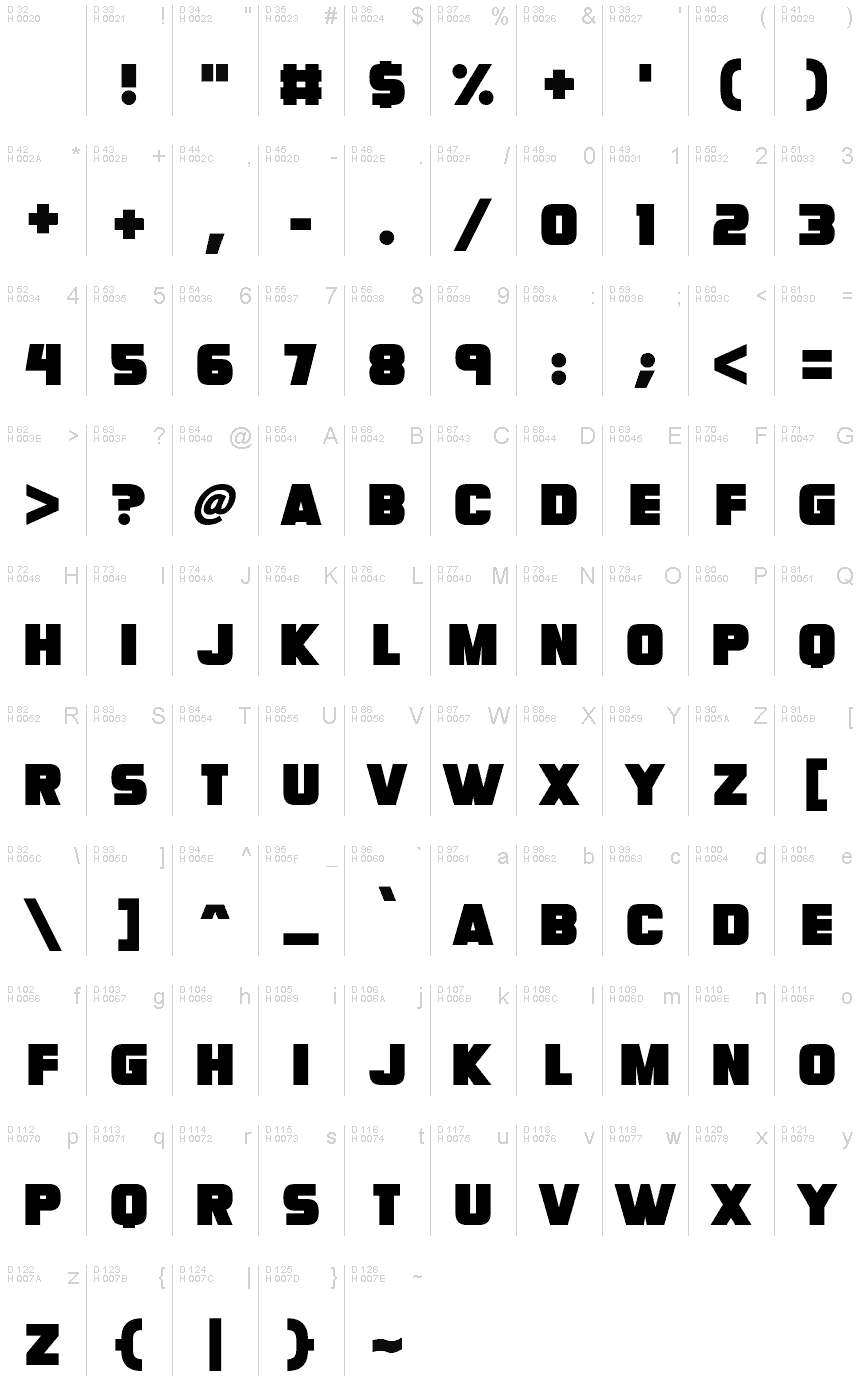
Megabomb
Megabomb is a striking sans-serif font that exudes power and intensity. Its bold, angular letterforms command attention, conveying a sense of strength and urgency. The geometric shapes and clean lines lend a modern, minimalist aesthetic, making Megabomb a versatile choice for a wide range of design applications.
This font shines in attention-grabbing contexts such as headlines, logos, and branding. Its bold presence can cut through visual clutter, making it an excellent option for packaging, posters, and digital interfaces. Megabomb's distinctive style also lends itself well to editorial design, adding visual impact to magazine covers and book titles.